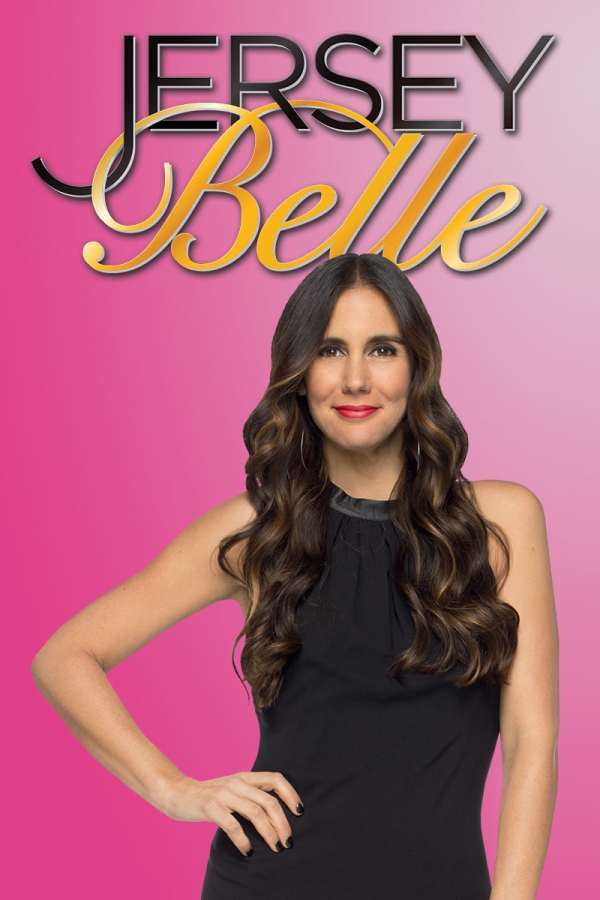
Jersey Belle Font
Fonts in UseJersey Belle is an American reality television show that premiered on Bravo in 2014. It follows the life of Jaime Primak Sullivan, a successful publicist from New Jersey who moves to Alabama with her husband, Michael Sullivan. The show documents her attempts to fit into Southern culture while maintaining her Jersey roots.
It's likely that the text "Jersey" is displayed in the contemporary sans serif font Alright Sans Light designed by Jackson Cavanaugh. While the cursive font used for "Belle" is probably Snell Roundhand Bold Script from Linotype.